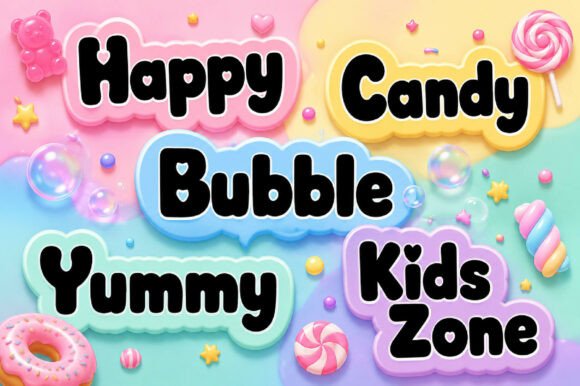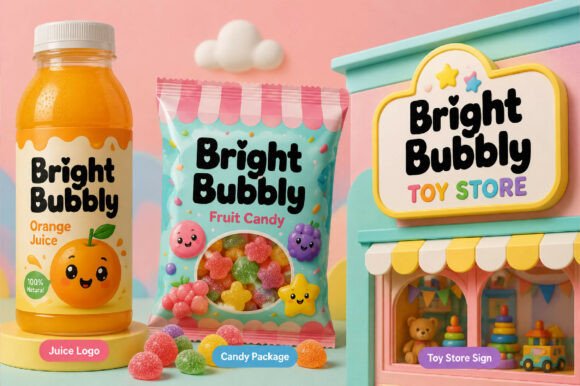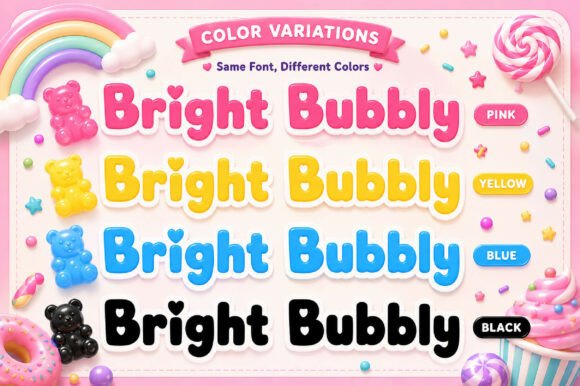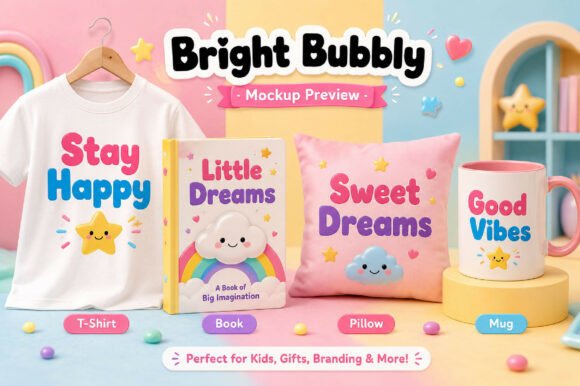
Indulge Your Sweet Tooth with Design
Have you ever been scrolling through social media and stumbled upon a colorful, whimsical design that immediately caught your attention? Maybe it was a birthday invitation, a bakery advertisement, or a fun digital animation that made you smile. Whatever it was, chances are it featured a typeface that added to the playful atmosphere – and that’s exactly what the Bright Bubbly Font is all about.
This delightful display font is designed to bring a touch of sweetness to your designs. With its inflated letterforms, ultra-smooth curves, and charming heart-shaped accents, Bright Bubbly Font is perfect for creating confectionery branding, bakery logos, and birthday stationery that’s sure to pop off the page. Whether you’re a designer looking to add some whimsy to your projects or a business owner seeking to establish a memorable brand identity, the Bright Bubbly Font is an extraordinary choice that’s sure to deliver a legendary and lovable presence.
Bright Bubbly Font Key Features
- Font Family: Bright Bubbly Font is a custom-designed sans-serif font family, available in multiple weights and styles.
- Font Size: Bright Bubbly Font is designed to be highly legible at font sizes ranging from 8pt to 48pt, making it suitable for a wide range of applications.
- Resolution: The font is optimized for high-resolution displays (Retina and above) and can be used at resolutions up to 300 DPI.
- Unique Characteristics: Bright Bubbly Font features a unique blend of modern and playful elements, including rounded corners, subtle curves, and a friendly feel.
Bright Bubbly Font Review
I’ve had the chance to play around with the Bright Bubbly Font, and I have mixed feelings about it. Here’s what I think.
- Unique Character**: The font has a distinct, playful feel to it. It’s perfect for projects that need a bit of whimsy.
- High Legibility**: Despite its bubbly nature, the font is surprisingly easy to read, especially at larger sizes.
- Good for Headings**: The font’s bold, colorful personality makes it a great choice for headings and titles.
- Not Ideal for Body Text**: While the font is legible, it’s not the most comfortable to read in large blocks of text.
- Limited Character Set**: The font’s unique style makes it less suitable for projects that require a wide range of special characters.
Overall, I think the Bright Bubbly Font is a great addition to any designer’s toolkit – as long as you use it judiciously. It’s perfect for adding a pop of color and personality to your projects, but it’s not a good choice for large blocks of text or projects that require a lot of special characters.
Tips for Getting the Most Out of “Bright Bubbly Font”
To get the most out of “Bright Bubbly Font”, try the following:
- Use it in combination with bright, bold colors to create a playful and eye-catching design.
- Use it in headings and titles to draw attention and create a sense of hierarchy.
“Bright Bubbly Font” is perfect for:
- Children’s book covers
What is the recommended font size and line height for using Bright Bubbly Font?
For optimal readability, we recommend using a font size between 12 and 24 points, with a line height of at least 1.2 times the font size. This will ensure that the text remains clear and legible, even at smaller sizes.